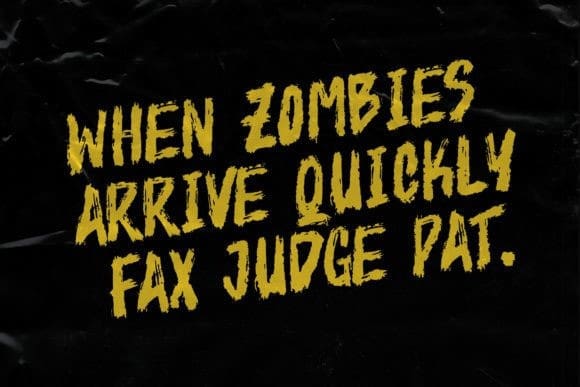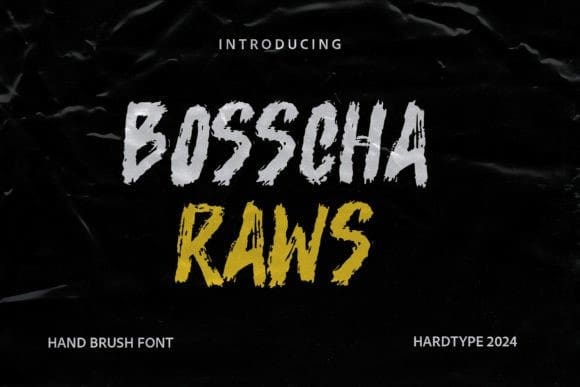
Bosscha Raws Font
Bosscha Raws Font is a handwritten brush texture font. This texture is very detailed. Very suitable for logos, product branding, printable templates, posters, flyers, shirts, or for text overlay to any background image. Acorn Brush font comes in All caps, with punctuation, and numerals and also has multilingual support.